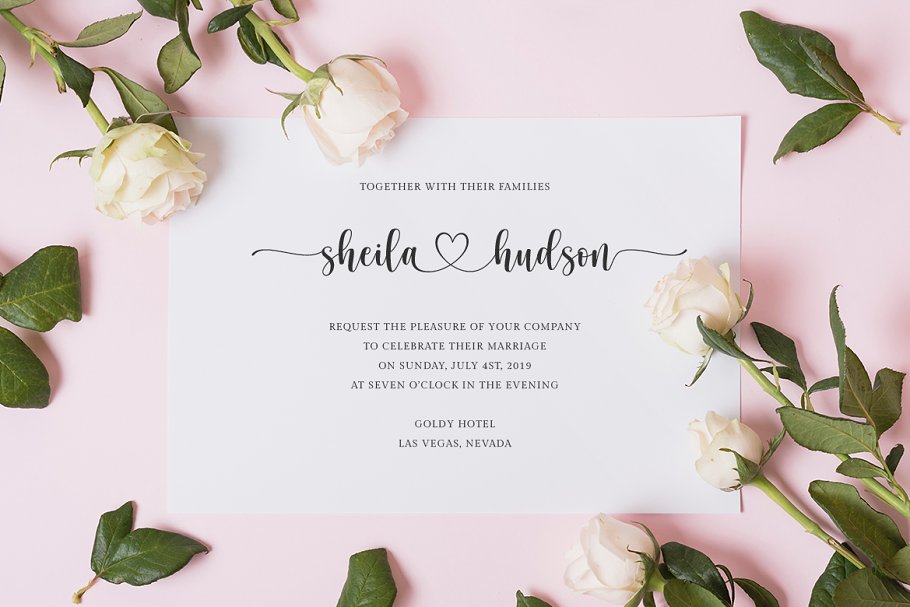
Hello Honey, a chic script font by Luthfi Fauzi, is the perfect font to elevate your branding, wedding invitations, and romantic projects. This new update offers exciting features like initials, uppercase beginning swash, and lowercase beginning and ending swash, connecting heart, and more.
With its eye-catching design and unique features, Hello Honey is one of the best fonts for Instagram posts. This font is a must-have for those who want to create a memorable impression on social media platforms.
In conclusion, Hello Honey is a beautiful, chic script font that will elevate your projects and make them stand out. Download Hello Honey now and give your project the attention it deserves.